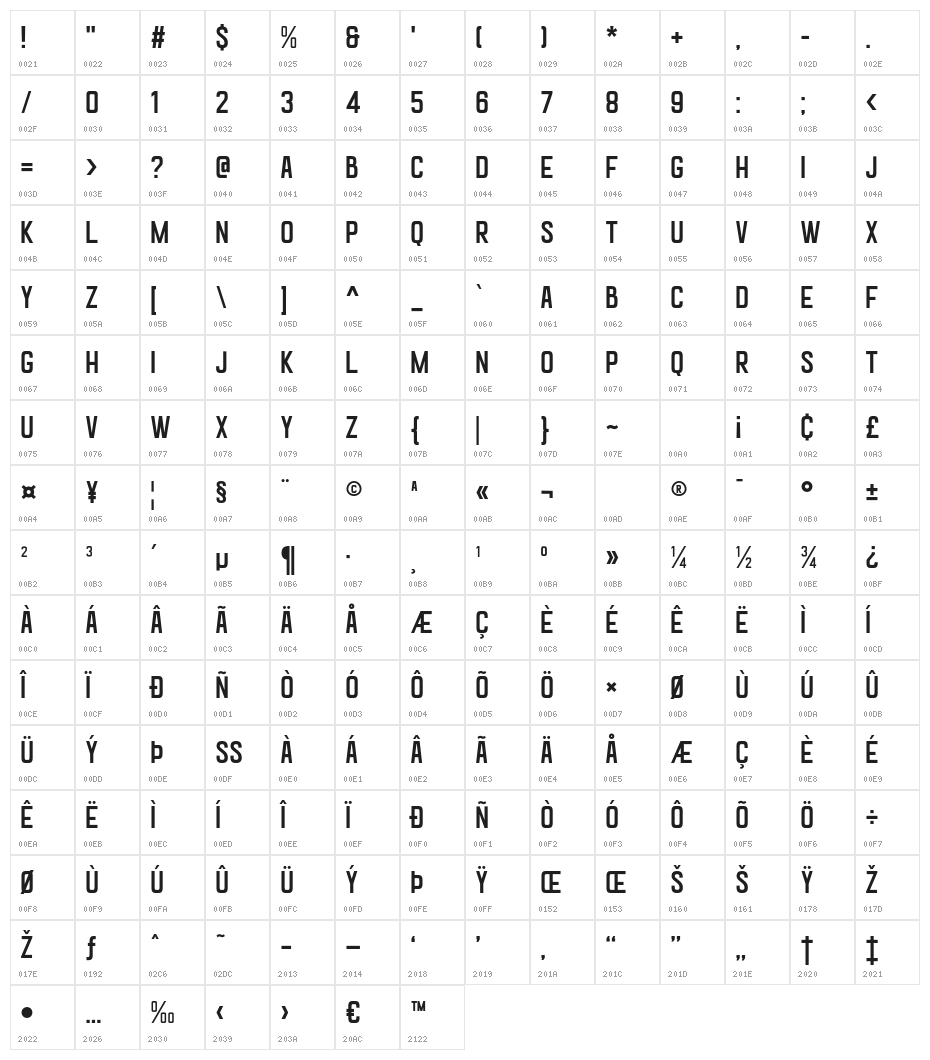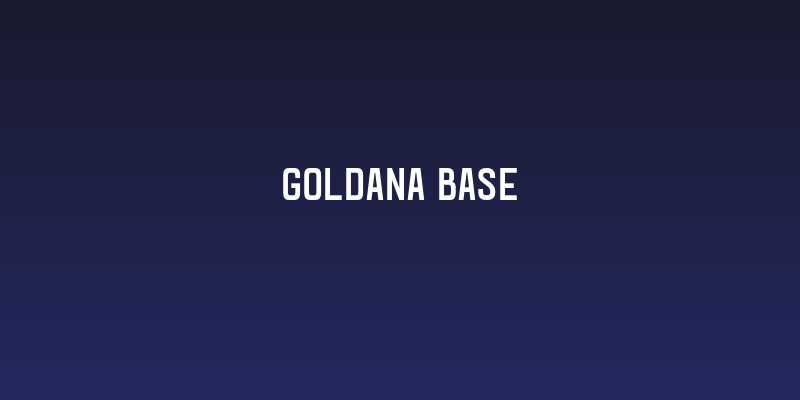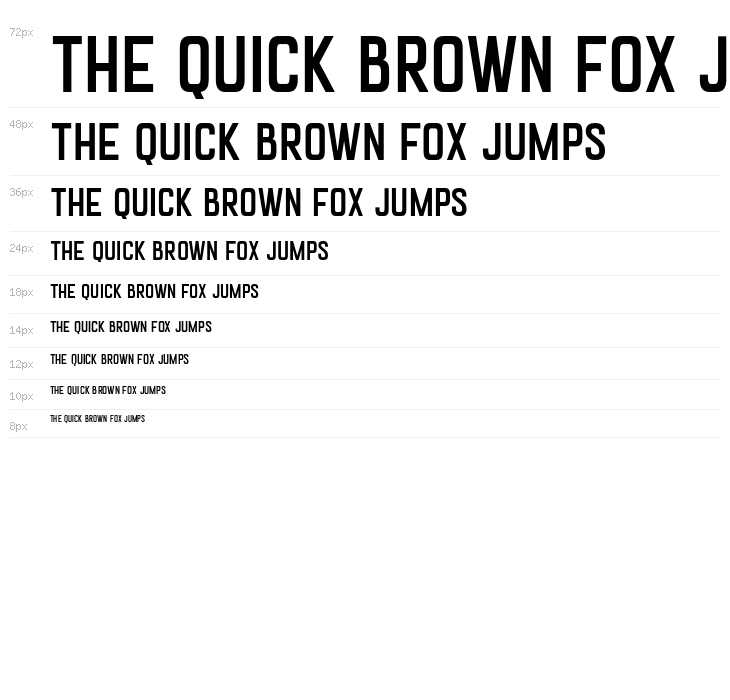
Goldana Base Font
Goldana Base Description
This font features a bold and modern sans-serif style with clean, straight lines and uniform stroke widths. The uppercase letters are tall and slightly condensed, giving a strong and assertive appearance. The lowercase letters maintain the same boldness, ensuring readability and consistency across different text sizes. The numerals are clear and distinct, matching the overall geometric style of the font. Special characters are well-integrated, maintaining the same visual weight and style as the alphanumeric characters. This font is versatile, suitable for both digital and print media, and can effectively convey a contemporary and professional tone.